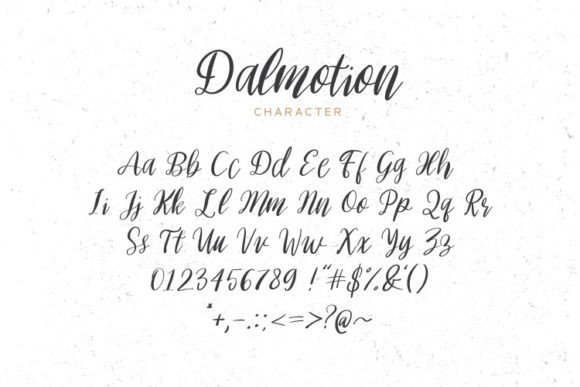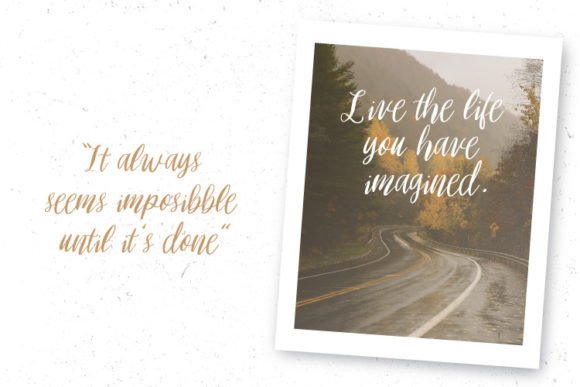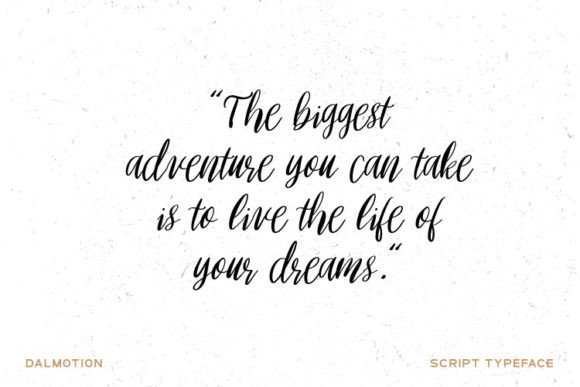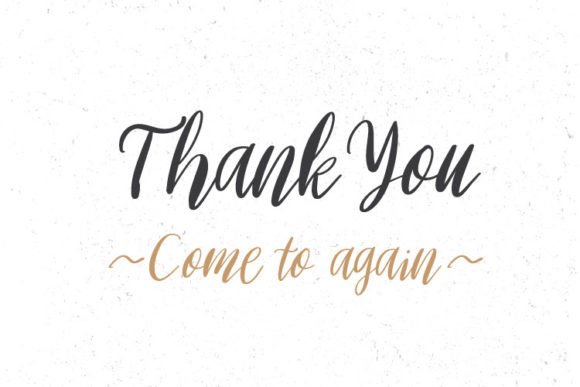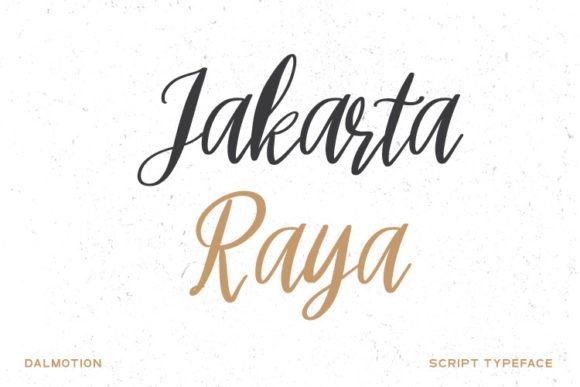
Dalmotion Font
About Dalmotion Font
The Dalmotion Font Download is a beautiful handwritten script that combines elegance with playfulness. Its fun and quirky characters bring a unique personality to every design. As a result, it is an excellent choice for projects that need to look stylish while still feeling casual and approachable.
Moreover, Dalmotion adapts well to both digital and print formats. Whether you are designing logos, creating wedding invitations, or working on social media graphics, this font provides a balance of creativity and readability. In addition, its versatile design makes it suitable for both professional branding and personal projects.
Features of Dalmotion Font
When you choose the Dalmotion Font Download, you’ll enjoy several features that make it stand out:
• A playful and quirky handwritten script style
• Smooth, flowing strokes with unique letterforms
• Excellent readability across different sizes
• A versatile look that works in formal and casual projects
• Balanced characters that keep your text creative yet clear
Best Uses for Dalmotion Font
The Dalmotion Font Download works beautifully in a wide range of creative projects. For example, it is perfect for:
• Logos and branding – Add personality to boutique and lifestyle businesses
• Wedding invitations and stationery – Romantic, fun typography with elegance
• Greeting cards – Create joyful, personalized messages for any occasion
• Social media graphics – Eye-catching posts that stand out in feeds
• Posters and flyers – Bold and quirky designs that capture attention instantly
• DIY crafts – Handmade projects that need a personal handwritten style
Because of its adaptability, Dalmotion quickly becomes a favorite choice for designers across many industries.
Why Choose Dalmotion Font
The Dalmotion Font Download is different from ordinary typefaces because it blends playfulness with elegance. Unlike plain script fonts, it has quirky characters that add a creative edge to your work. In addition, it is versatile enough to fit both formal invitations and casual social media posts.
Furthermore, its clear strokes make it easy to use, even in small text layouts. As a result, Dalmotion is suitable for beginners and professionals alike, giving every project a polished yet fun finish.
In conclusion, the Dalmotion Font Download is a beautiful and quirky handwritten script designed to add charm and creativity to any project. From invitations and greeting cards to logos and social media posts, it ensures your designs stand out with elegance and fun.